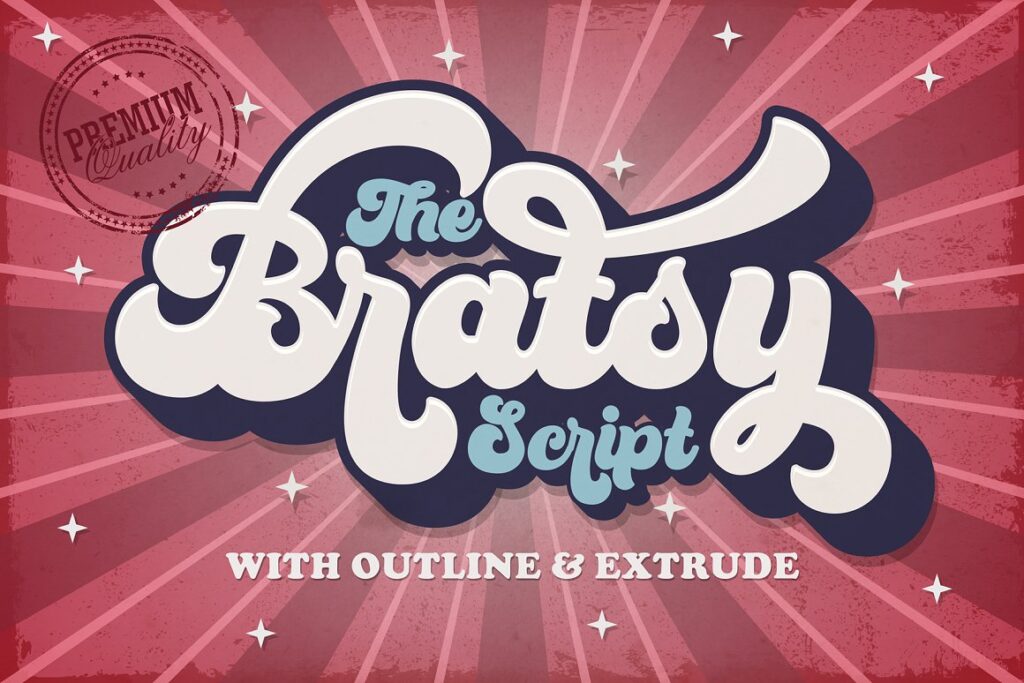
Bratsy Script is a layered bold script with the outline and extrude, inspired by a Retro aesthetic. Made in combination with hand lettering, it comes with dramatic movement and it’s great for any next creative project that needs a retro vibe or modern touch.